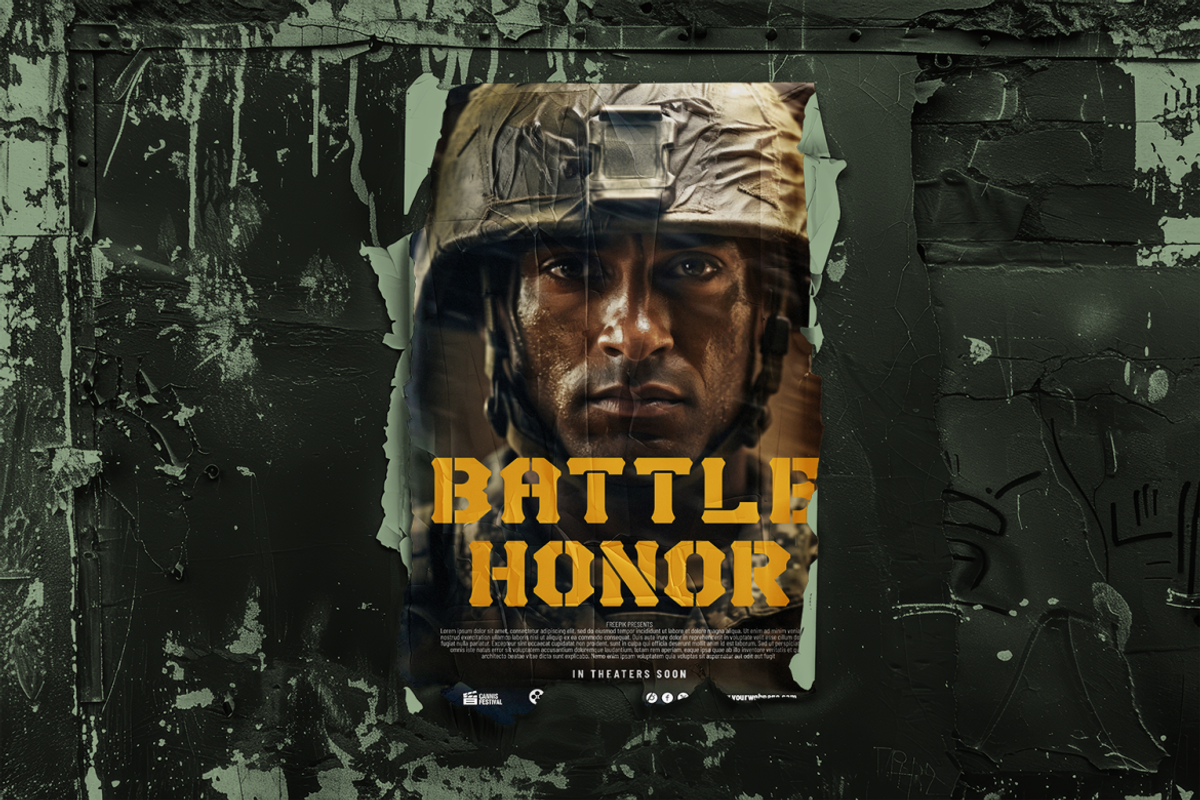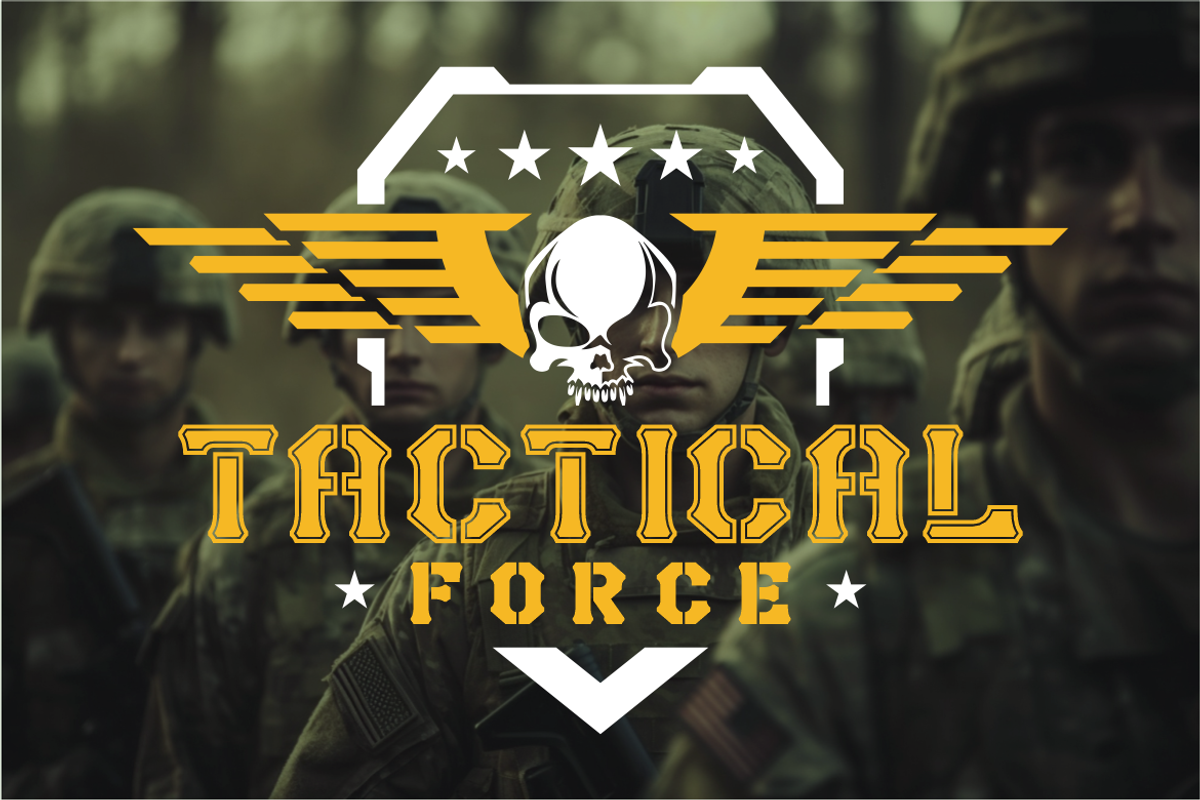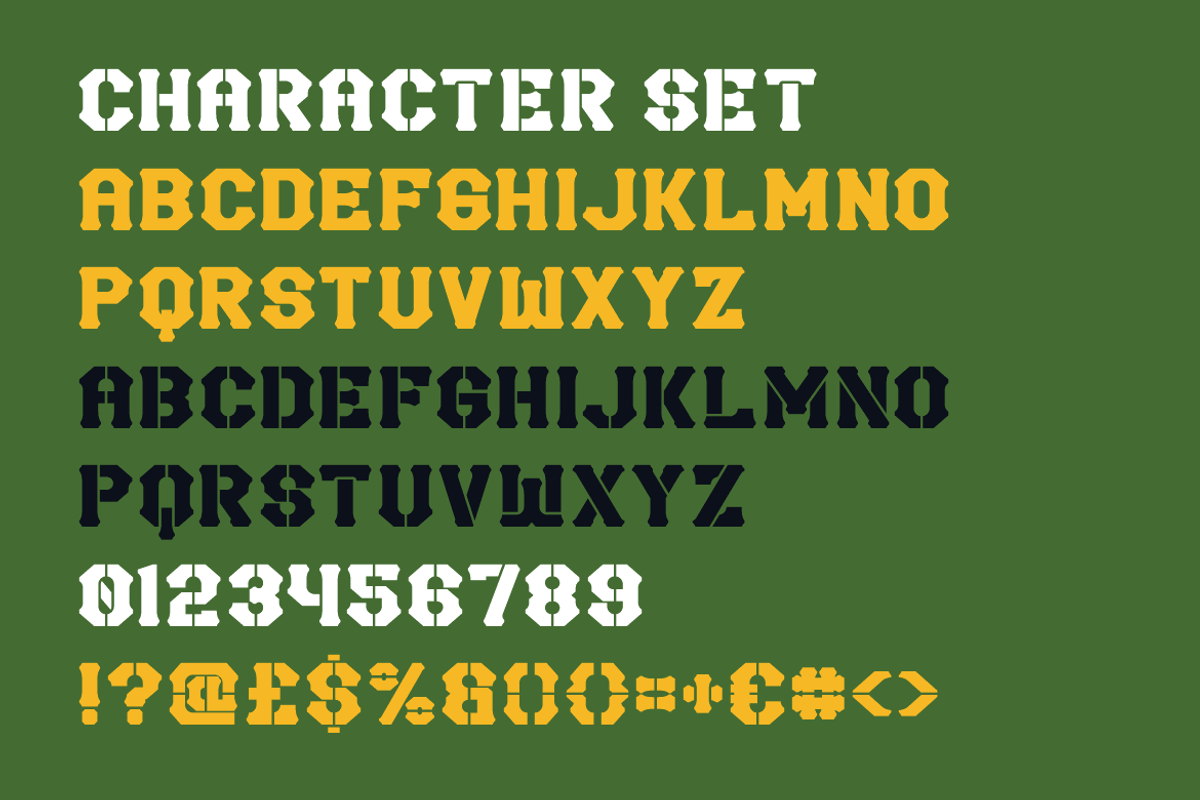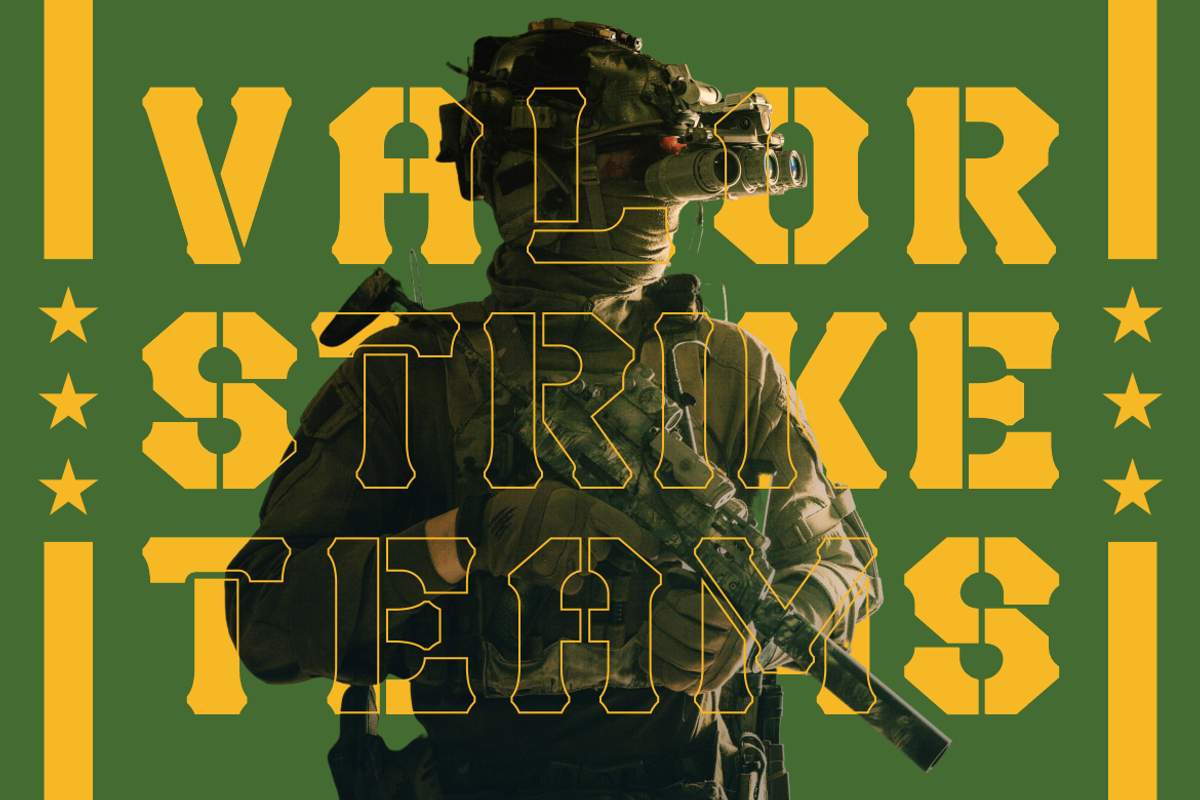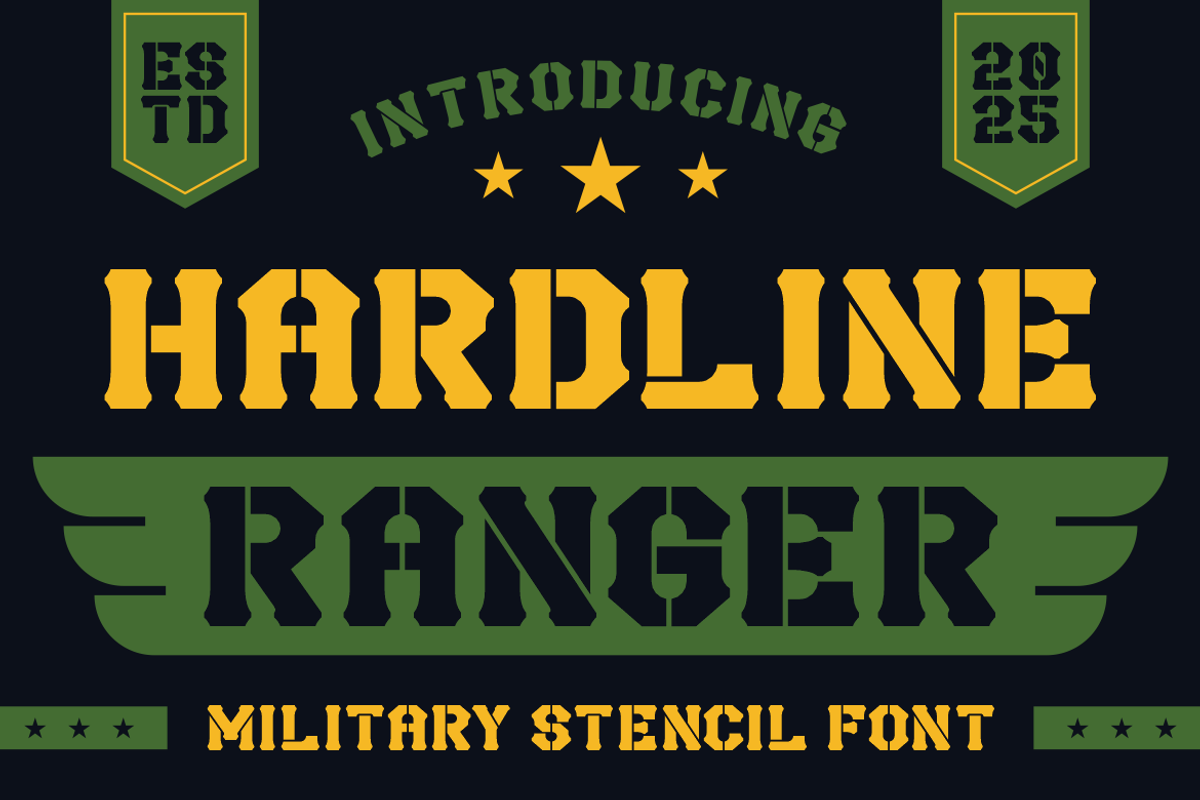
Hardline Ranger Military Stencil
Hardline Ranger is a bold military stencil font that embodies grit, discipline, and tactical authority. Designed with octagonal corners, sharp indentations, and industrial cuts, each letter mimics real-life stenciling used on military gear and equipment. Its bold, compressed forms give the typeface a commanding presence, while the clear modularity ensures legibility in rugged environments. The uppercase-focused structure enhances the bold, authoritative tone—ideal for mission titles, squad logos, military patches, and survival-themed visuals.
This font excels across branding, logo design, poster art, packaging, tactical gear, and film titles. The high-contrast layout, supported by versatile alternates and symbols, adapts seamlessly to modern digital or print usage. From combat video game interfaces to patriotic merchandise, Hardline Ranger is designed to deliver power, clarity, and a sense of strength. Whether you’re designing for battlefield intensity or military nostalgia, this font fires with precision and leaves a lasting impact.